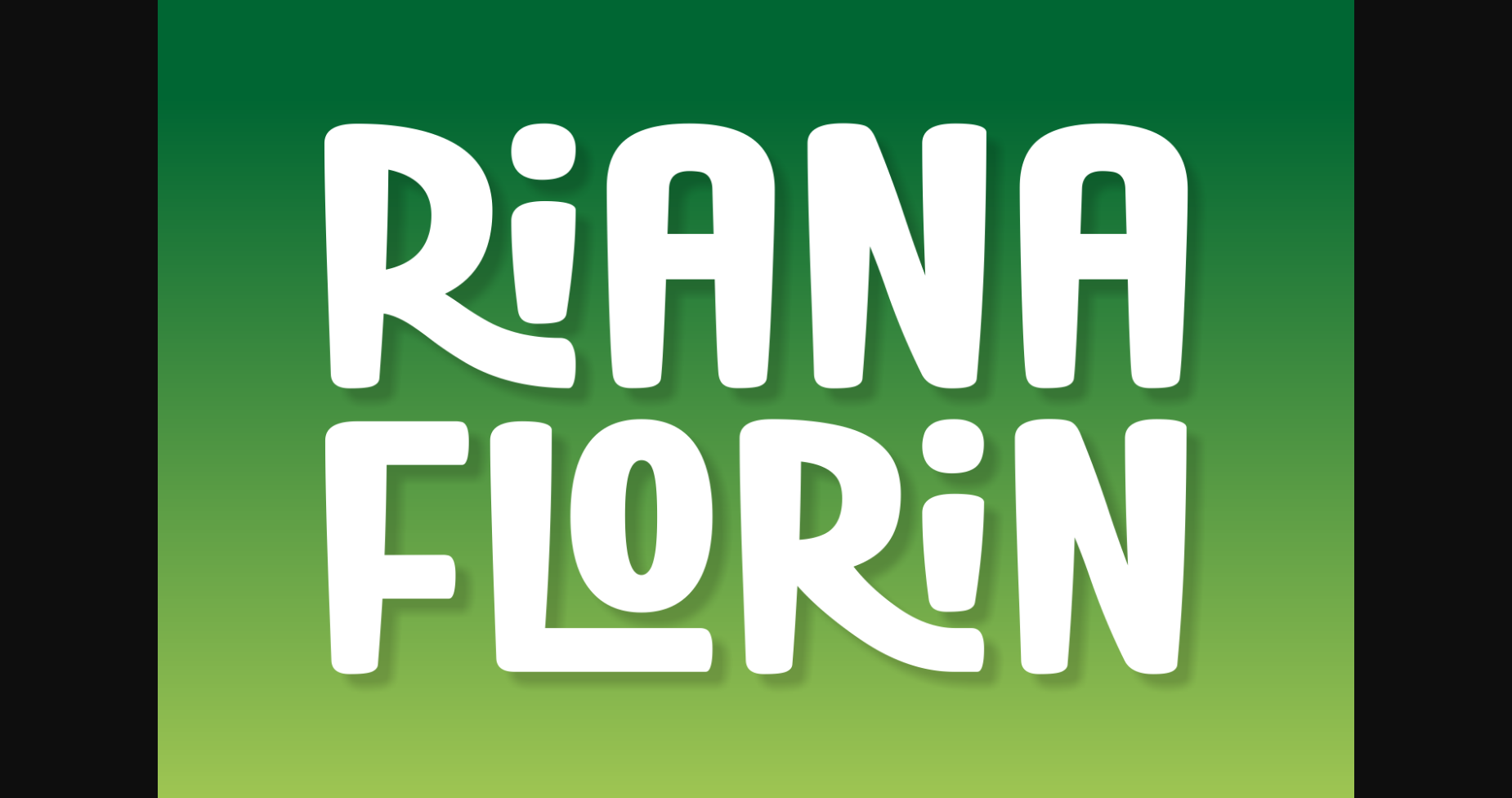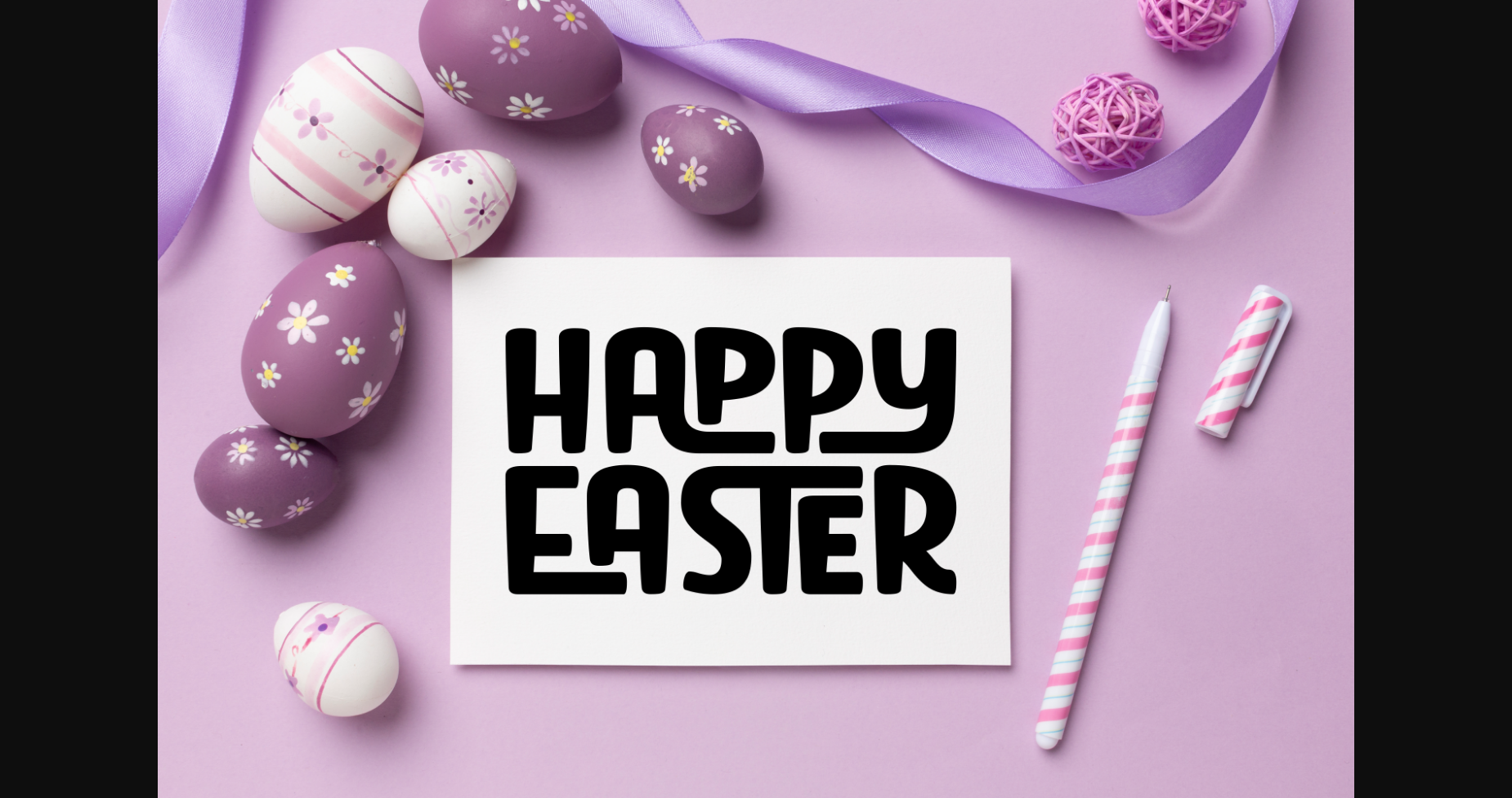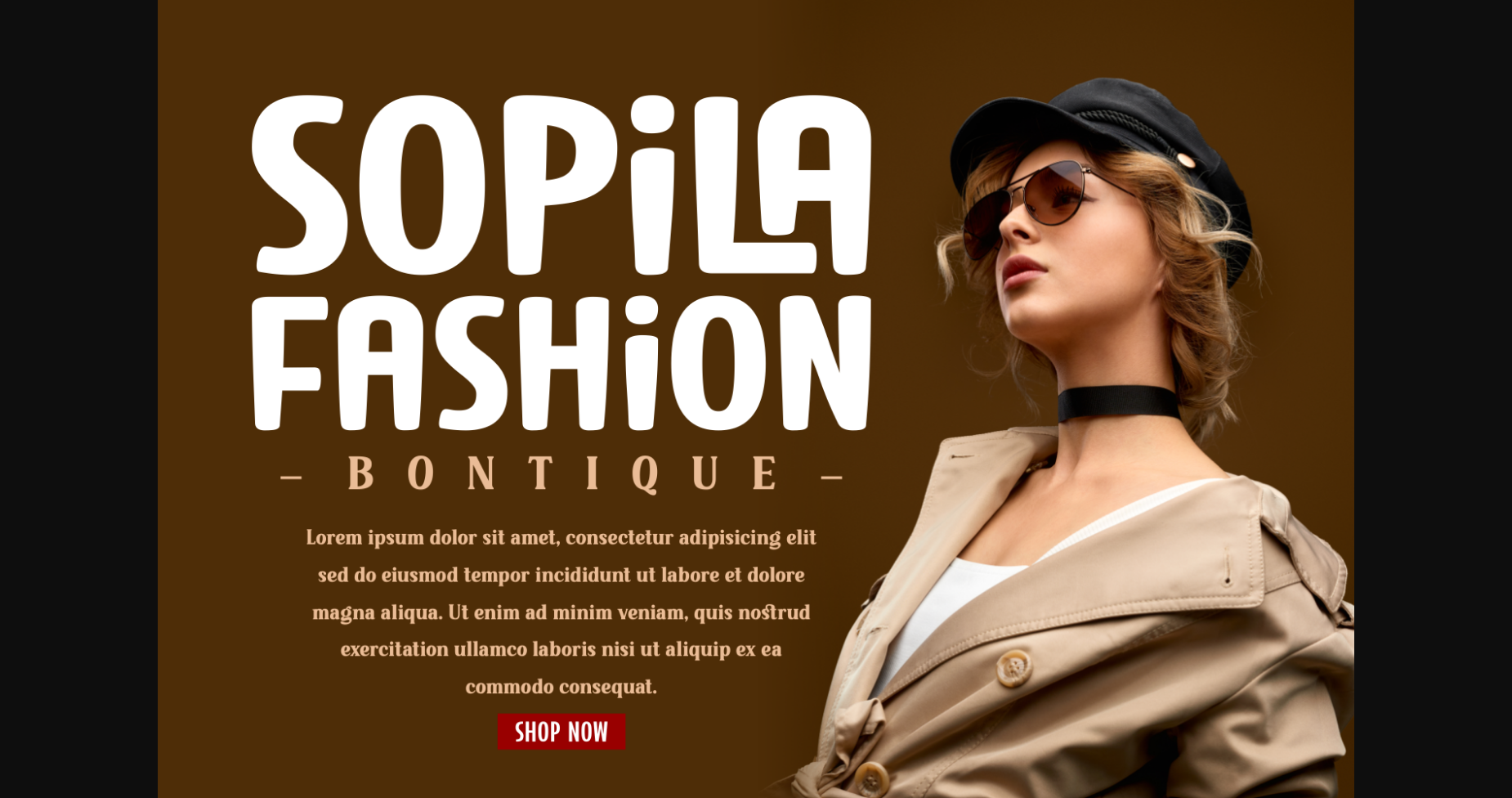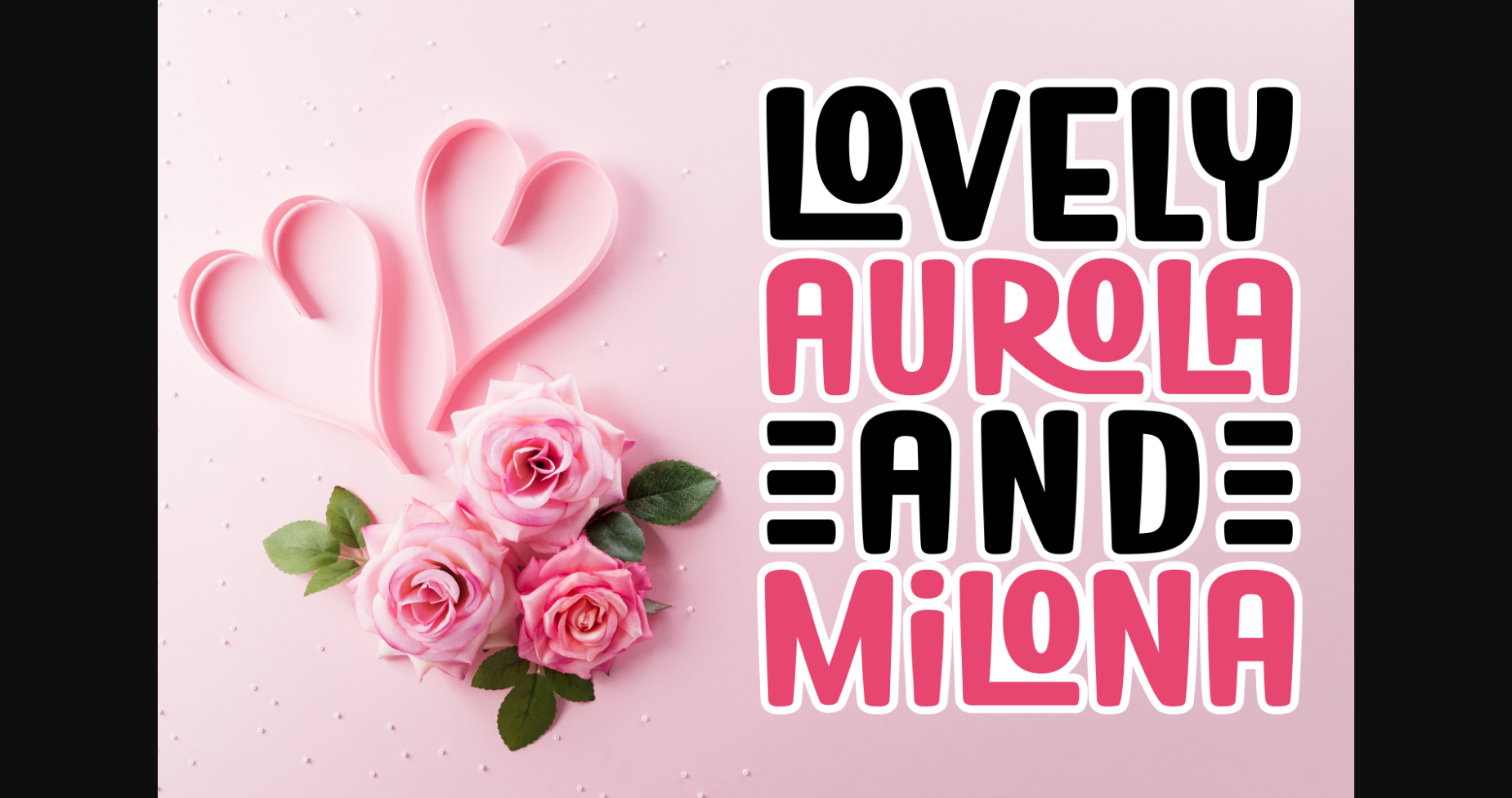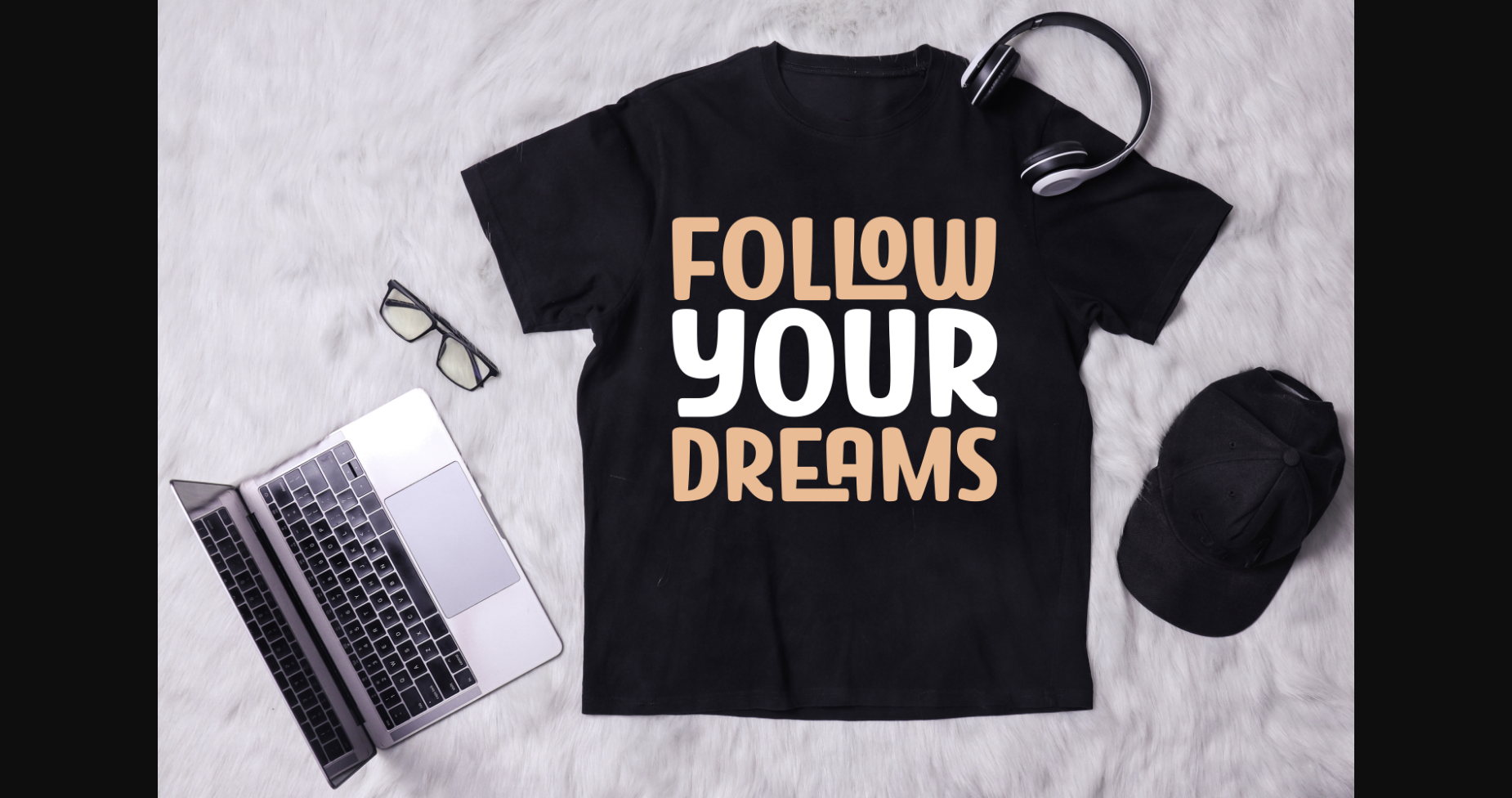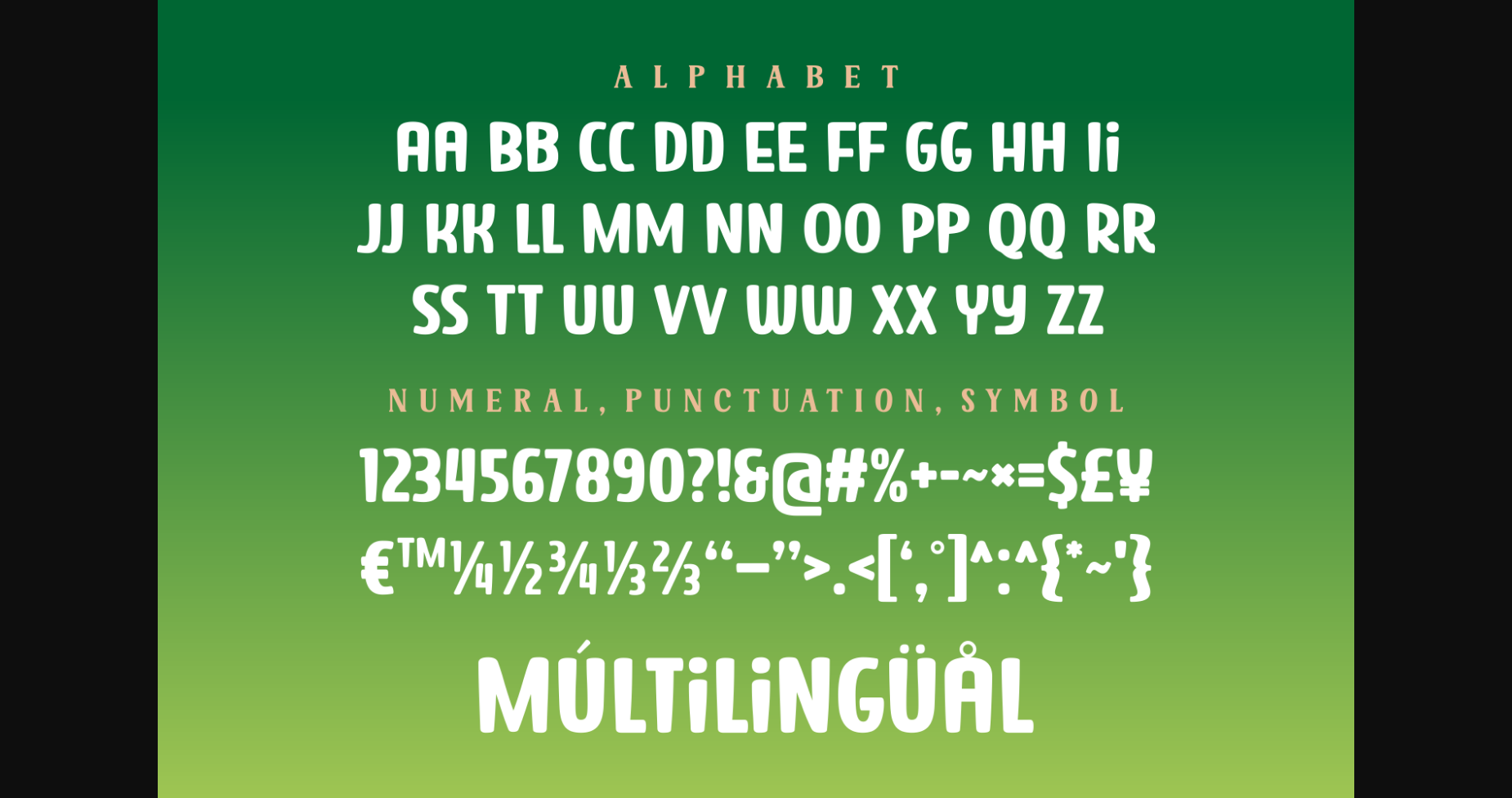
About Riana Florin Font
Riana Florin is a display sans serif font with elegant ligatures. You can successfully use it for branding, cards, covers, quotes, logos, t-shirts, fashion, and clothing designs.